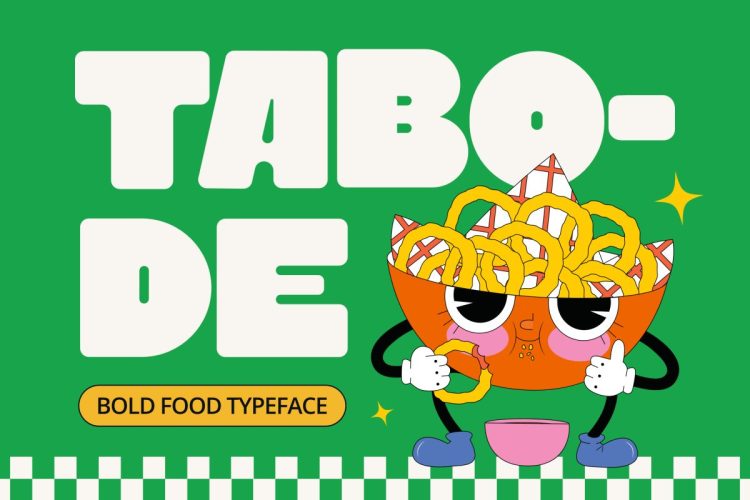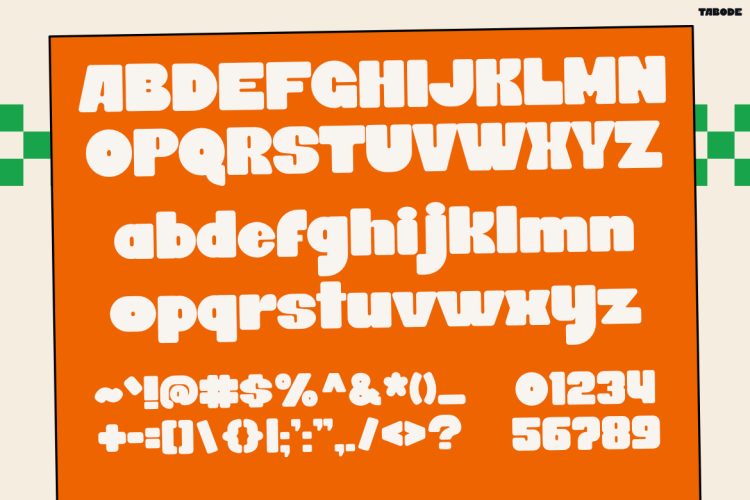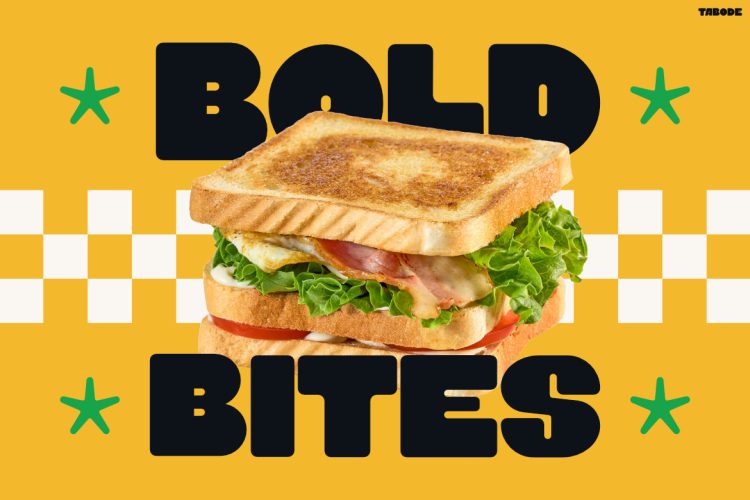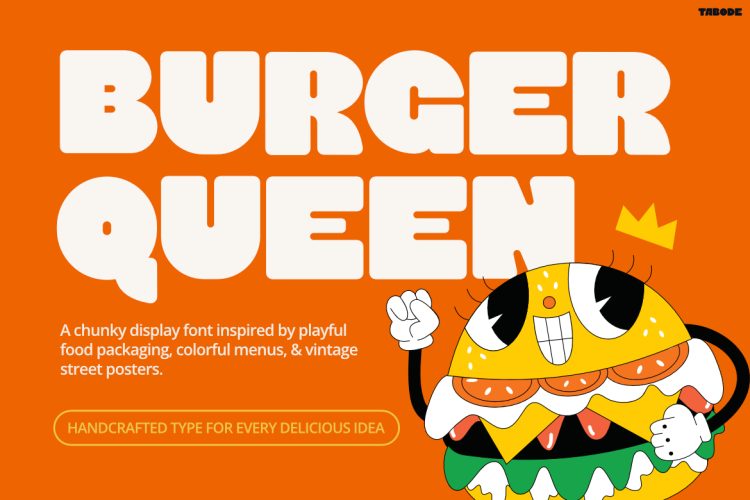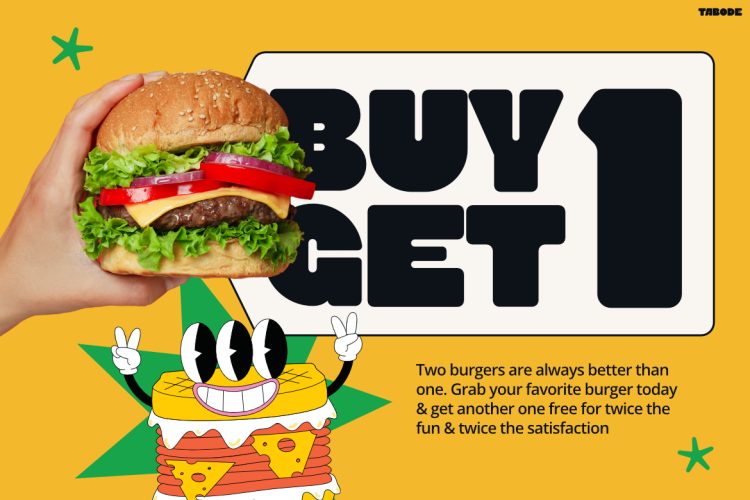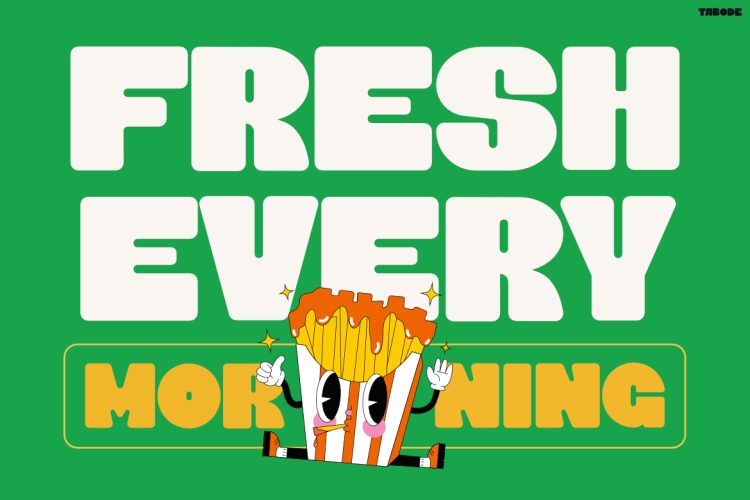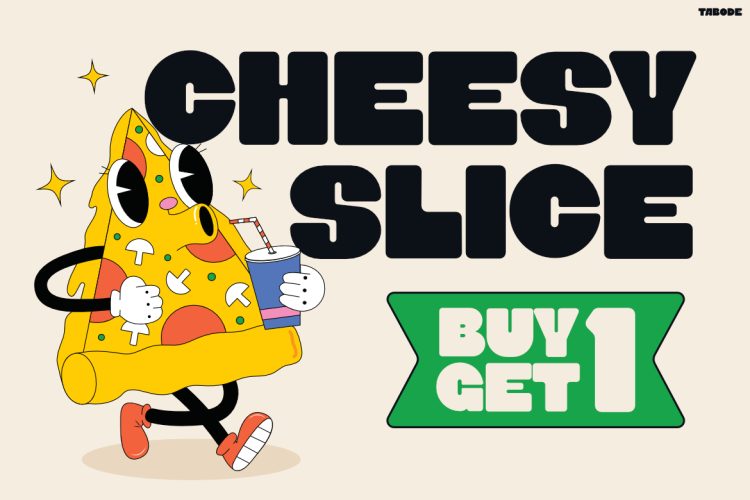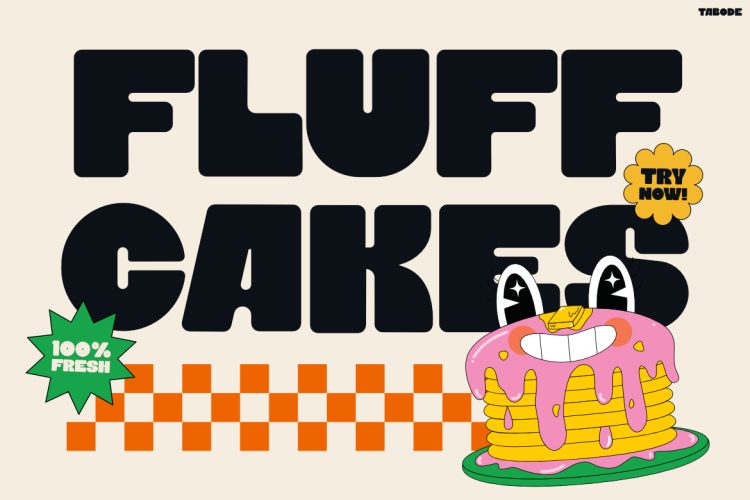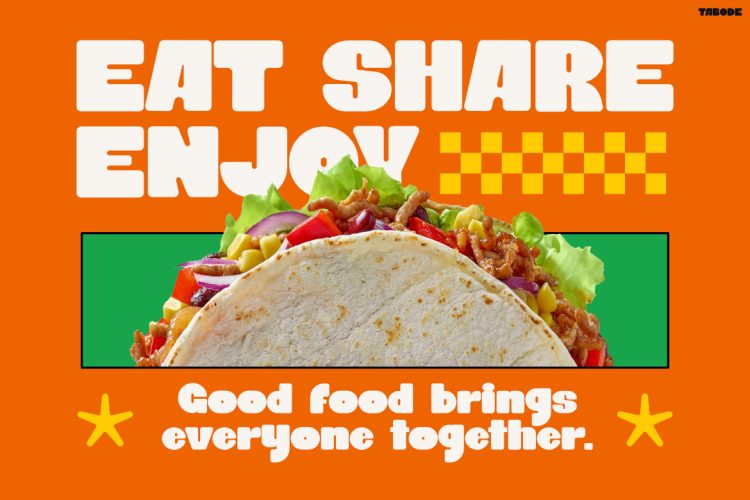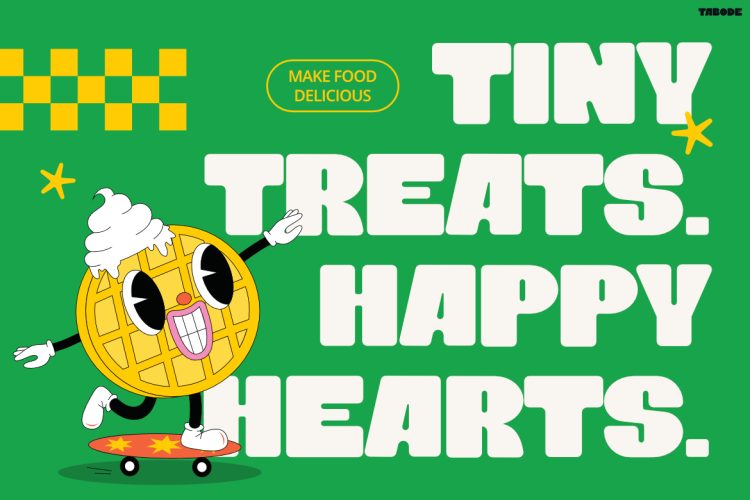
Kids Font Tabode โ Chunky Cartoon Typeface for Fast Food, Snacks & Happy Branding
Kids Font Tabode is a bold cartoon display font bursting with cheerful energy and irresistible charm. Instead of following ordinary typography, Tabode embraces oversized letterforms, rounded corners, and playful proportions that instantly spark joy. Moreover, its thick and friendly characters make every headline feel fun, tasty, and impossible to miss. As a result, your designs capture attention within seconds. At the same time, the bold structure keeps every word highly readable on both digital and printed media. Furthermore, Tabode delivers a vibrant personality that perfectly matches food brands, children’s products, and colorful promotions.
Why You’ll Love It
Kids Font Tabode is made for creators who believe typography should be as fun as the message itself. Not only does it add playful character to every design, but it also creates a memorable visual identity that people instantly recognize. In addition, its chunky style is perfect for burger shops, cafรฉs, snack packaging, kids’ menus, food trucks, restaurants, toy branding, stickers, posters, social media graphics, and promotional campaigns. Likewise, its cartoon-inspired shapes make every layout feel energetic and approachable. Meanwhile, the bold design ensures maximum visibility from a distance. Most importantly, Tabode turns simple words into exciting visual attractions.
Kids Font Tabode Perfect For
- Fast food restaurants and cafรฉs
- Burger and snack branding
- Kids’ menus and packaging
- Toy and candy brands
- Posters and promotional campaigns
- Social media graphics
- Stickers and merchandise
- Children’s event branding
Make Every Design Taste Better
If you want your designs to be fun, bold, and unforgettable, Tabode is the perfect recipe. Furthermore, its playful personality instantly brings excitement to every project. Consequently, your branding becomes more eye-catching, engaging, and memorable. Finally, choose Tabode today and serve up designs that make everyone smile before they even take the first bite.